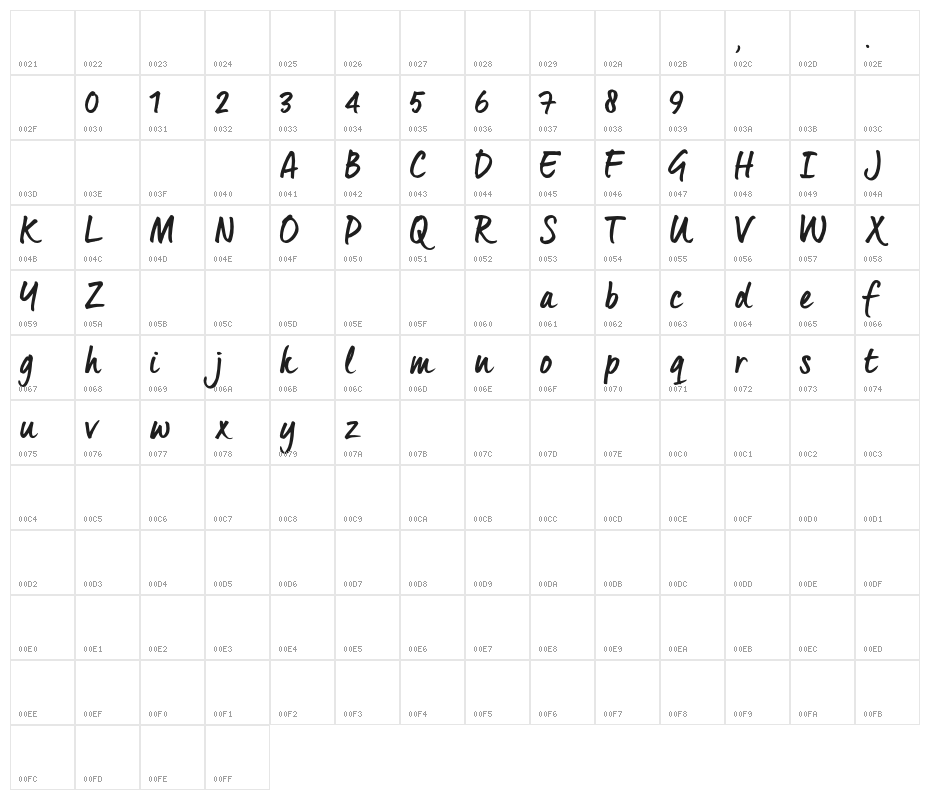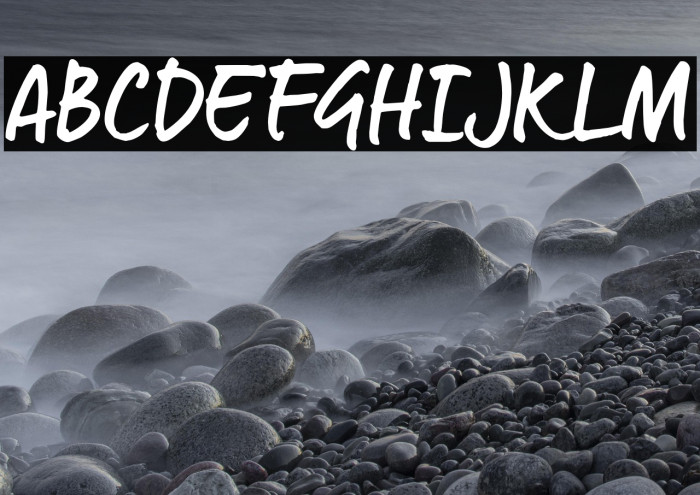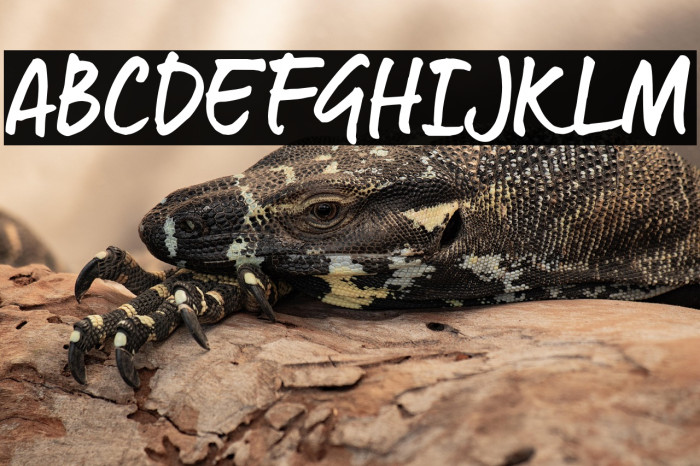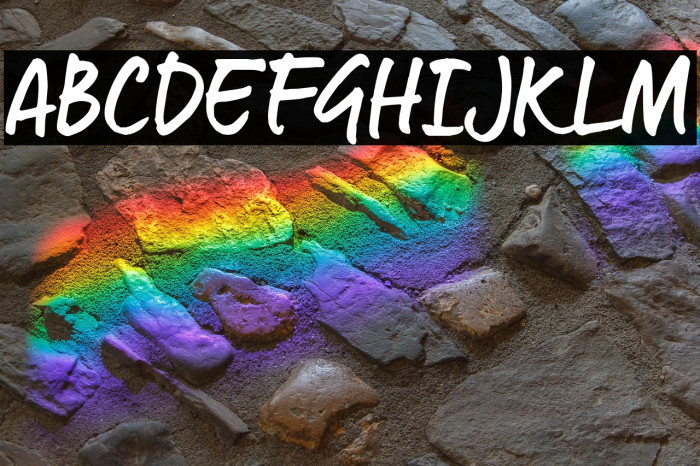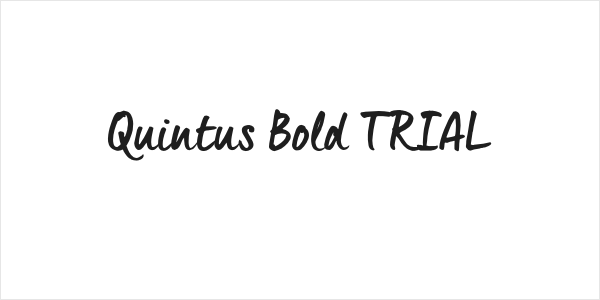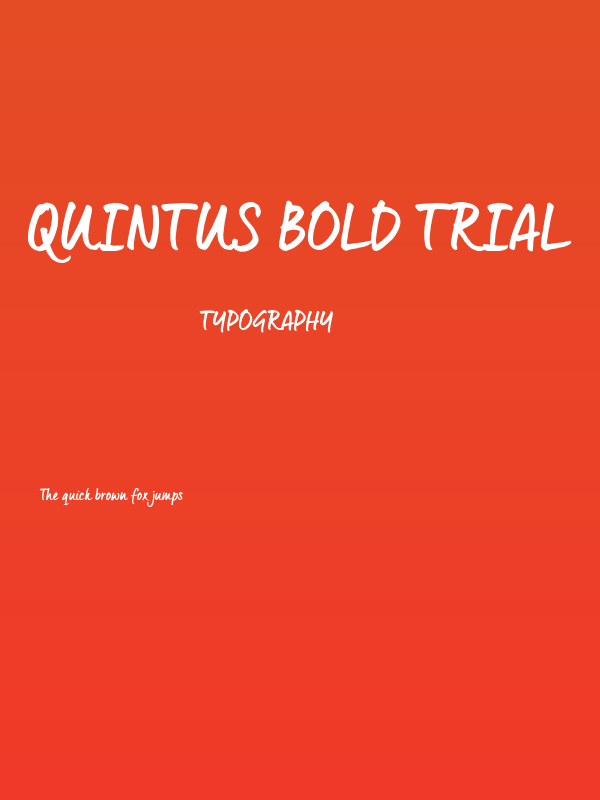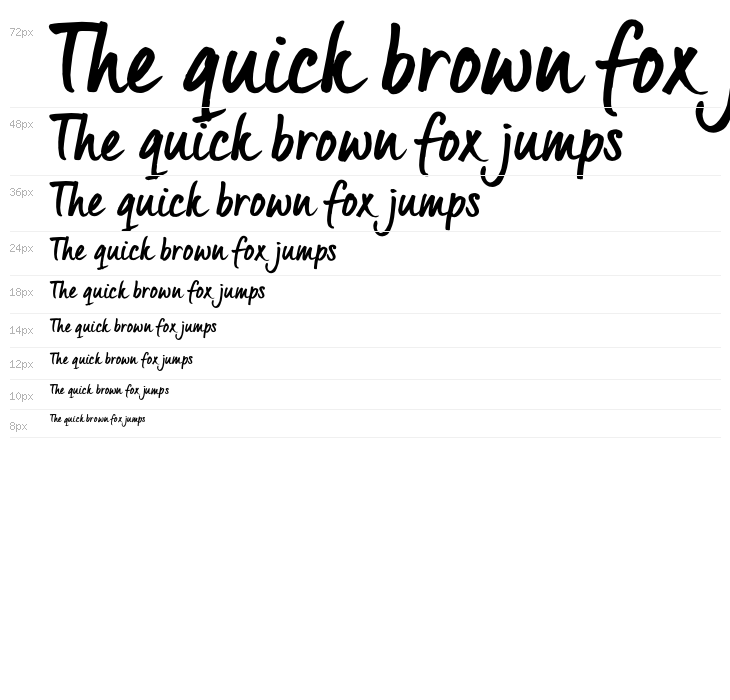
Quintus Bold_TRIAL Font
Quintus Bold_TRIAL Description
This font features a bold, handwritten style with a casual and dynamic appearance. The letters are slightly slanted, giving a sense of movement and fluidity. The strokes are thick and consistent, providing a strong visual impact. The uppercase and lowercase letters maintain a cohesive look, with rounded edges and smooth curves. The numerals are clear and easy to read, matching the overall style of the alphabet. This font exudes a friendly and approachable vibe, making it suitable for a variety of creative projects.